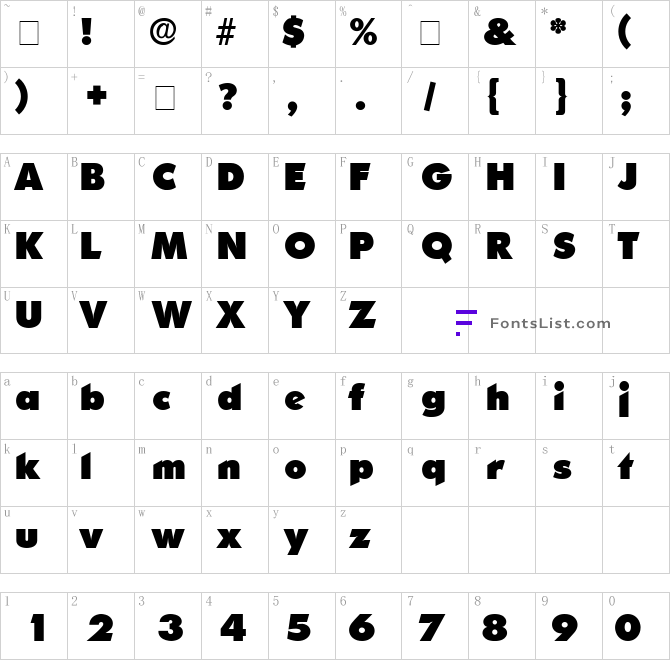
Candella-Display-SSi.ttf is a very beautiful artistic font, Candella-Display-SSi.ttf is widely used in the design and printing of various books and pictures,Candella-Display-SSi.ttf has a strong visual impact,Candella-Display-SSi.ttf is a commonly used font in newspapers, magazines and books, and is used in posters, e-commerce Poster design, store design, logo design, font design and other fields.Candella-Display-SSi.